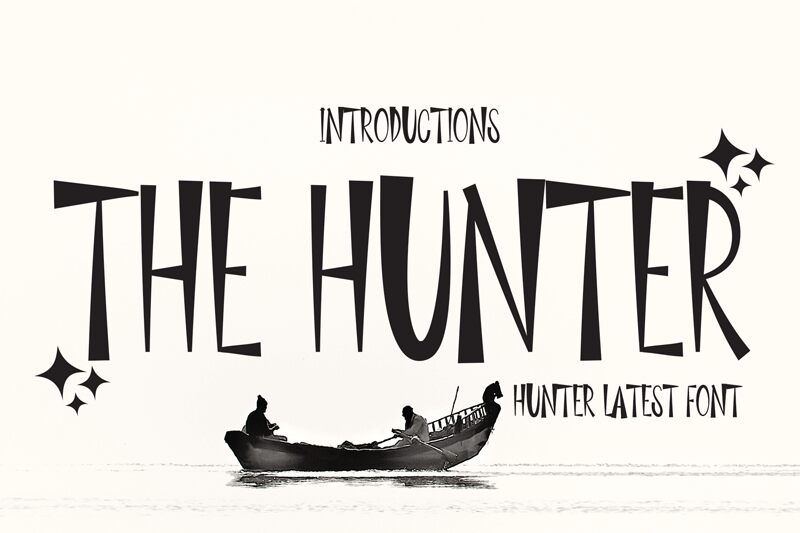
The Hunter
The Hunter font by scratchones is an extraordinary display font that will add a touch of elegance and sophistication to any project. With its condensed width, The Hunter is perfect for headlines, titles, logos, and anything that needs to stand out. This semi-bold typeface boasts a unique style that is both modern and timeless. Its versatility makes it suitable for various projects such as fashion magazines, luxury brands, food packaging, tech websites, and more. Whether you're designing a website or creating a poster for your next event, The Hunter font will elevate your work to the next level with its boldness and refinement.
the latest style letters are perfect for wall displays, wedding invitations, social media post logos,
advertisements, product packaging, product designs, labels, photography, watermarks, invitations, stationery,
and any project that requires taste handwriting.